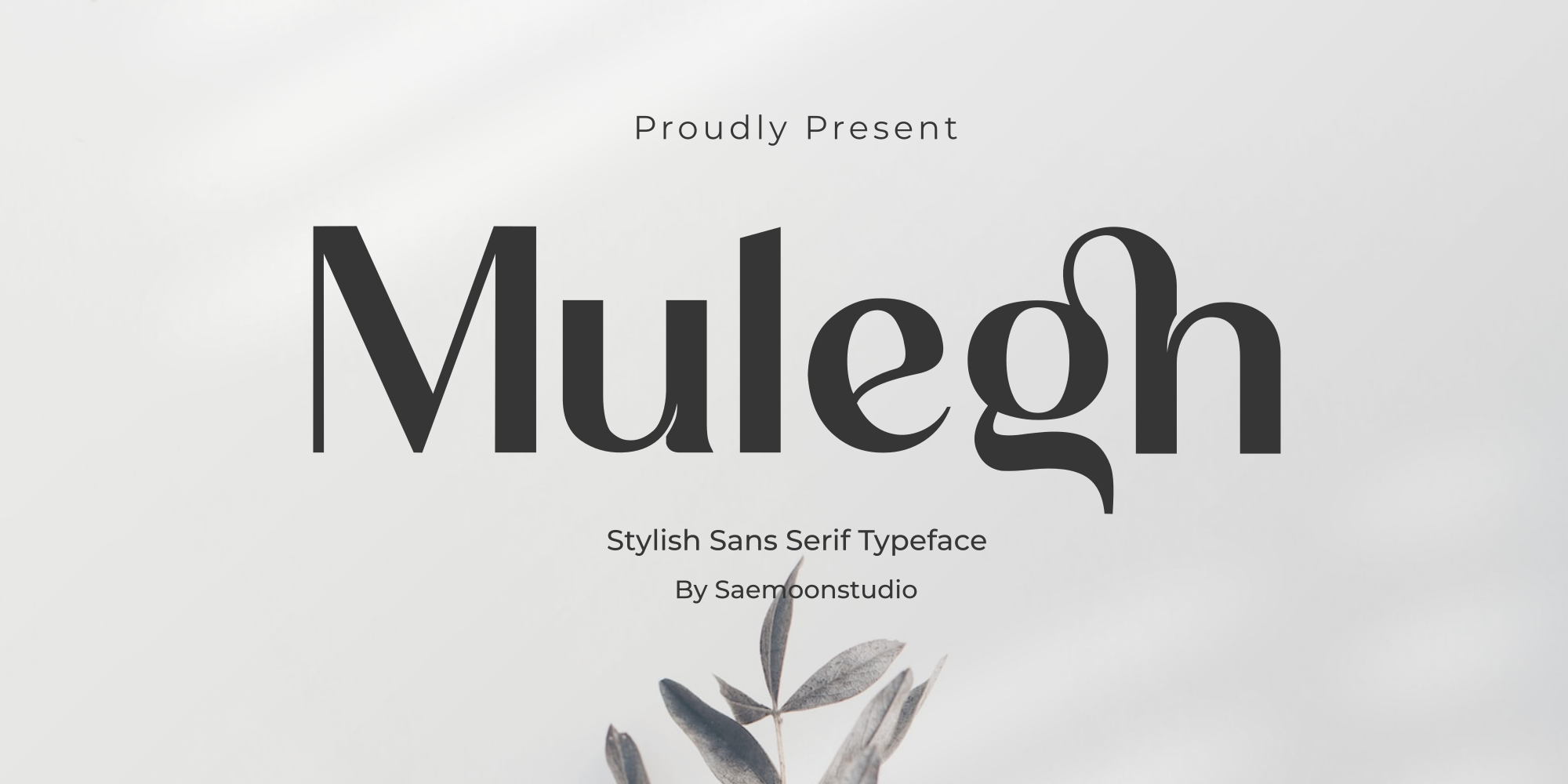
Mulegh Font is perfect for contemporary branding projects, modern tech applications, innovative startup materials, creative agency communications, progressive advertising campaigns, digital interface design, cutting-edge corporate identity, and forward-thinking marketing solutions.
This versatile sans-serif typeface is exciting because it seamlessly combines geometric precision with subtle humanistic warmth through carefully engineered letterforms that balance technical excellence with approachable character for optimal brand communication.
The Mulegh Font family includes thin, light, regular, medium, bold, and black weights with matching italic styles, providing designers with comprehensive typographic flexibility for creating sophisticated brand systems and dynamic layout hierarchies.
Contemporary and reliable, Mulegh Font Free Download represents modern typography excellence through its perfect fusion of technical precision and human-centered design philosophy. This exceptional font transforms brand communications into memorable experiences that resonate with today's discerning audiences seeking authenticity within innovation. Its clean geometry ensures flawless performance across all digital and print applications while maintaining the distinctive personality that differentiates successful brands from generic competitors. Perfect for technology companies and creative agencies, this font ensures your message carries the contemporary credibility essential for success in competitive modern markets. Whether powering mobile applications or comprehensive brand identity systems, Mulegh Font Free Download delivers the modern sophistication and versatile functionality that progressive organizations demand for effective multi-platform communication and lasting competitive advantage in today's fast-paced marketplace where exceptional typography creates lasting impressions.